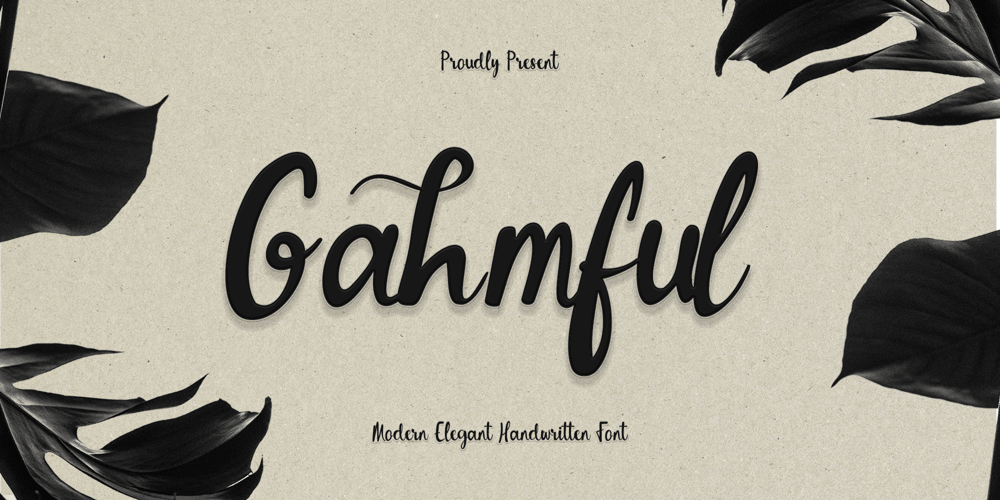
Gahmful Font Family was designed by Frederik Aristaputra and published by Creatifont Studio. Gahmful contains 2 styles and family package options. Gahmful is a bold and expressive handwritten font that combines modern style with classic charm. Its fluid brushstrokes create a dynamic and natural look, perfect for adding personality to your designs. Available in both regular and italic styles, Gahmful offers versatility without compromising its elegant aesthetic.A SUMMARY OF WHAT’S INCLUDED: Standard Character A-Z, a-z, 0-9, Punctuation & symbols Regular and Italic Style Lots of Alternates and Ligatures Multilingual Support Works on PC & Mac Simple installation Accessible in Adobe Creative Suite (Ai, Ps, Id, etc.) even work on Microsoft Word. PUA Encoded Characters – Fully accessible without additional design software. 🌟If you come across any issues or notice anything we might have overlooked while using this product, please feel free to reach out to us. We greatly value your feedback as it helps us enhance and refine our products. Thank you!